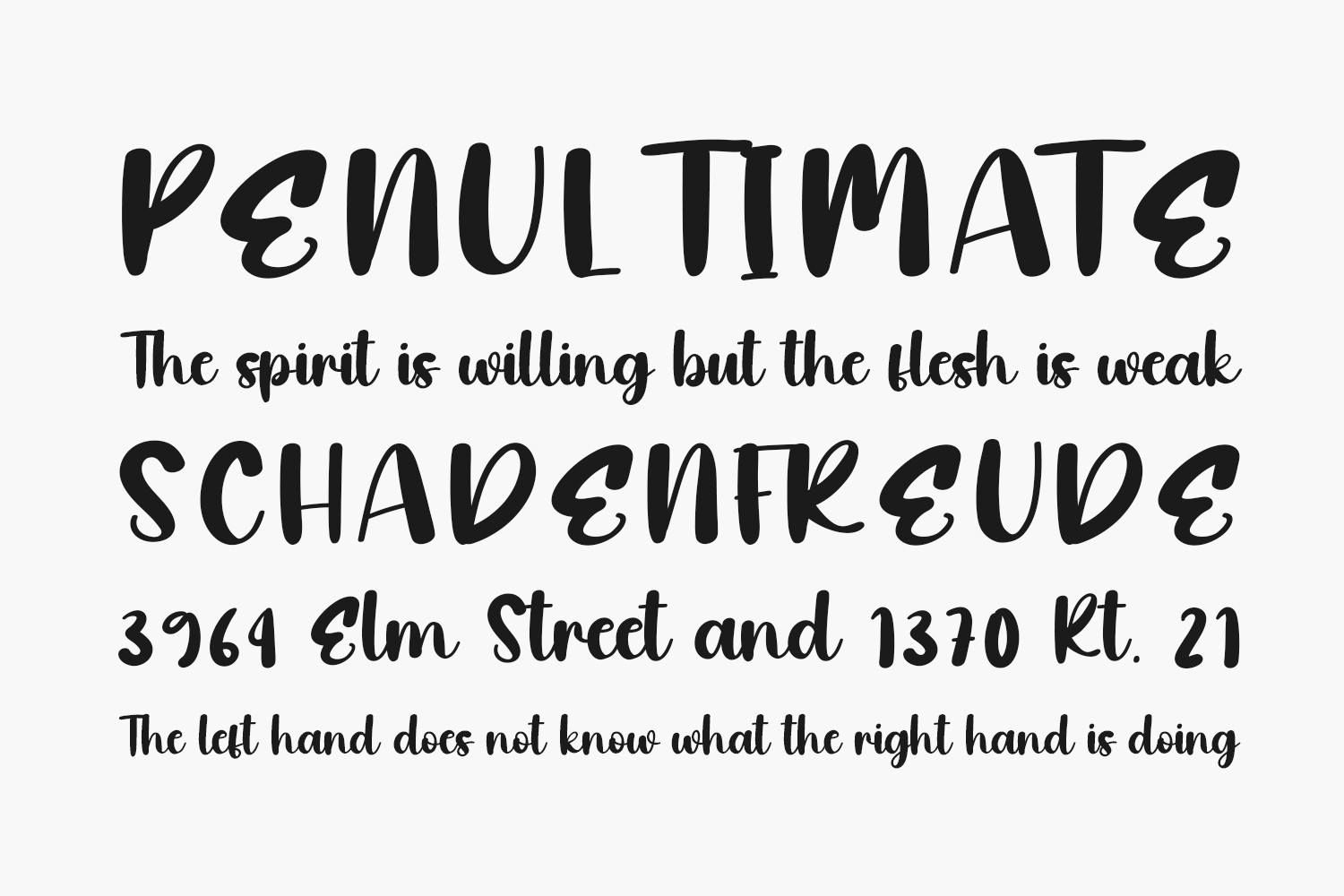
Introducing Masculine Free Font – a stylish and sophisticated handwritten typeface. With its delicate charm and playful elegance, this font is perfect for enhancing the beauty of wedding invitations, cards, or any creative project requiring a touch of romance and individuality. Masculine Free Font is free for personal use only. Please purchase the full version for commercial use.
Designed by Scratchones